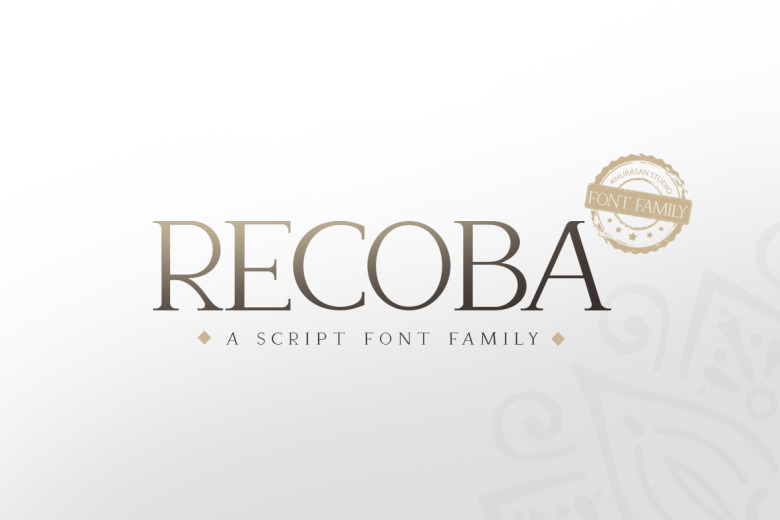
Recoba Font
Recoba is a stunning and elegant serif font that combines art deco sensibility with a modern style. This font has several different styles, and works best in fancy and ornamental projects.
Recoba Serif Font